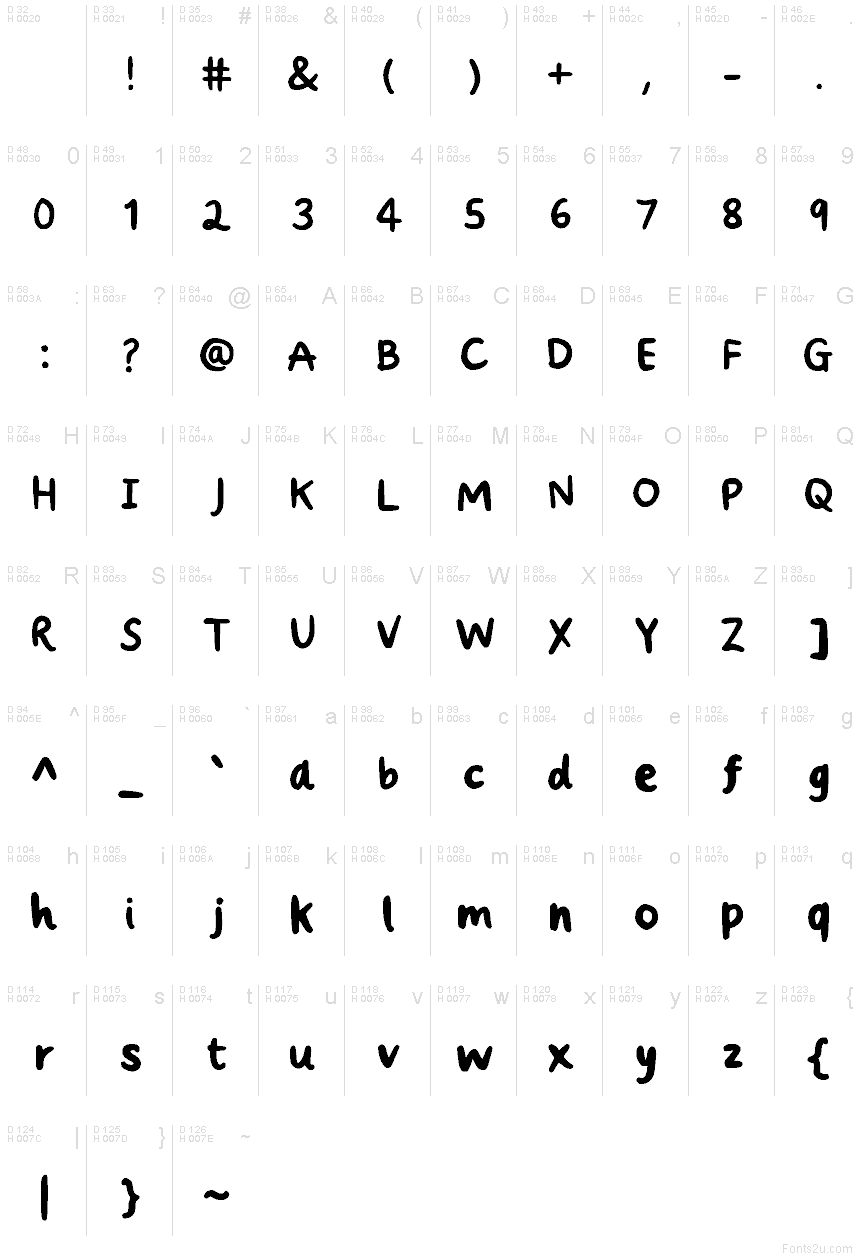
Cute Marker font by Emily Underworld is a free handwritten font that captures the look of a thick, inky marker without losing clarity. Rounded strokes, soft corners, and even spacing make it friendly and playful, but still easy to read at a glance. It feels like notes scribbled on smooth paper-casual and cozy-so you get personality without the usual messiness of handwriting fonts.
Using Cute Marker, you can bring warmth to kids’ books, classroom posters, planners, social posts, branding for handmade goods, and whimsical packaging. This free font holds up surprisingly well in longer lines of text, especially at medium sizes. Try pairing Cute Marker with a clean geometric sans-serif for body copy, letting its bold, bubbly letters handle headlines and key accents.
Cute Marker
Emily Underworld